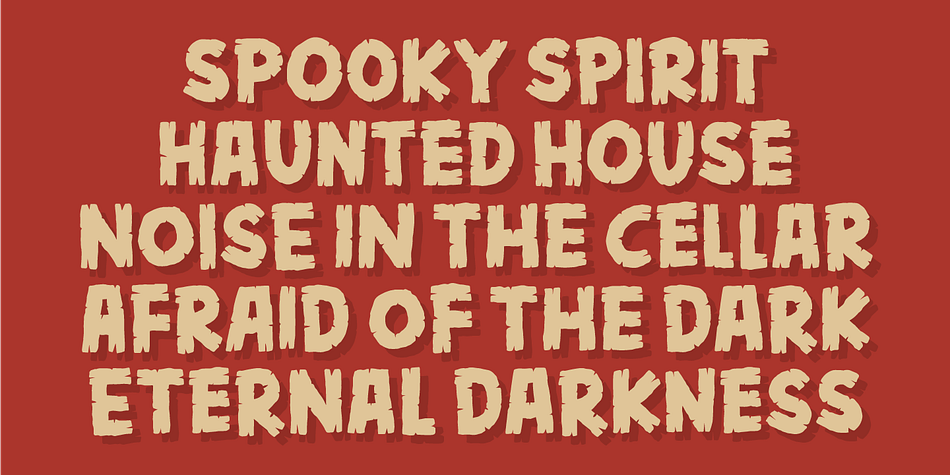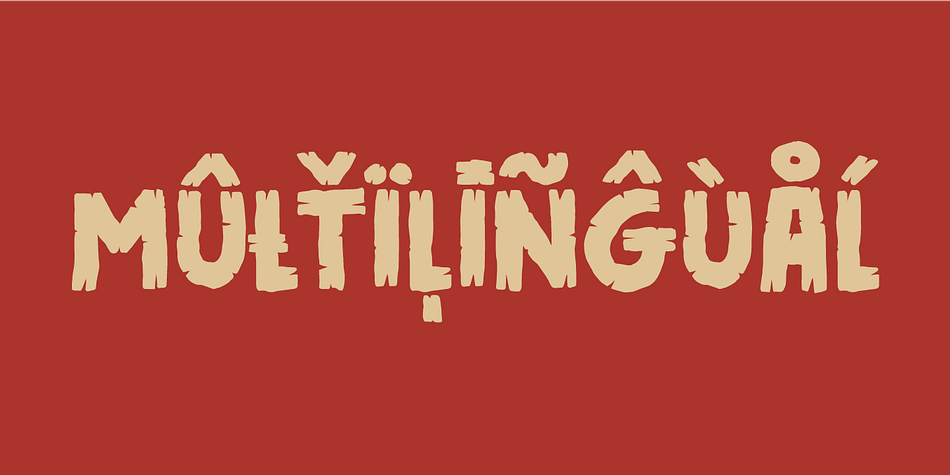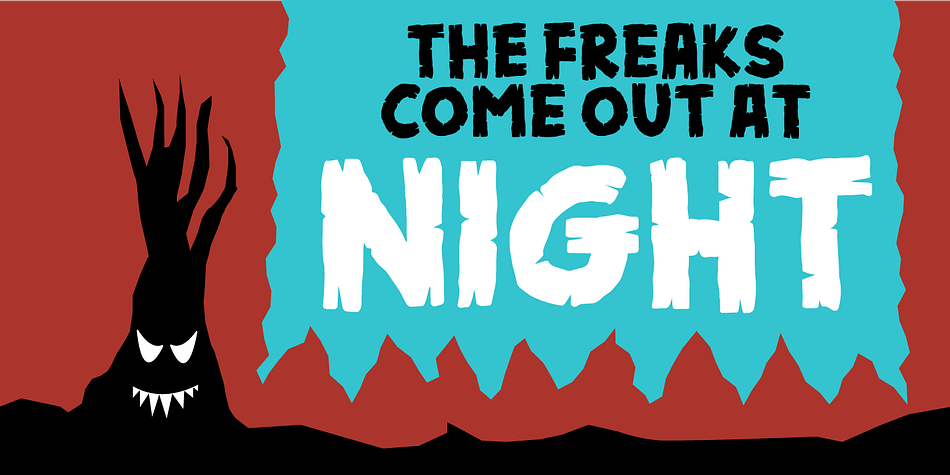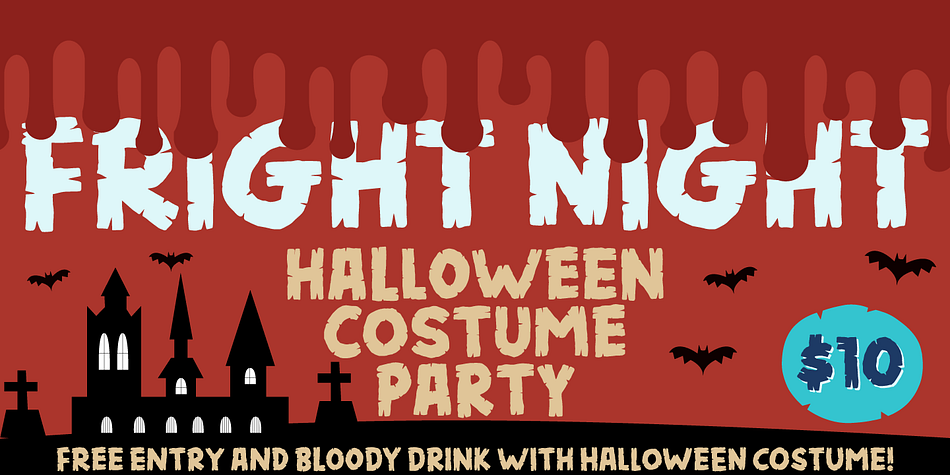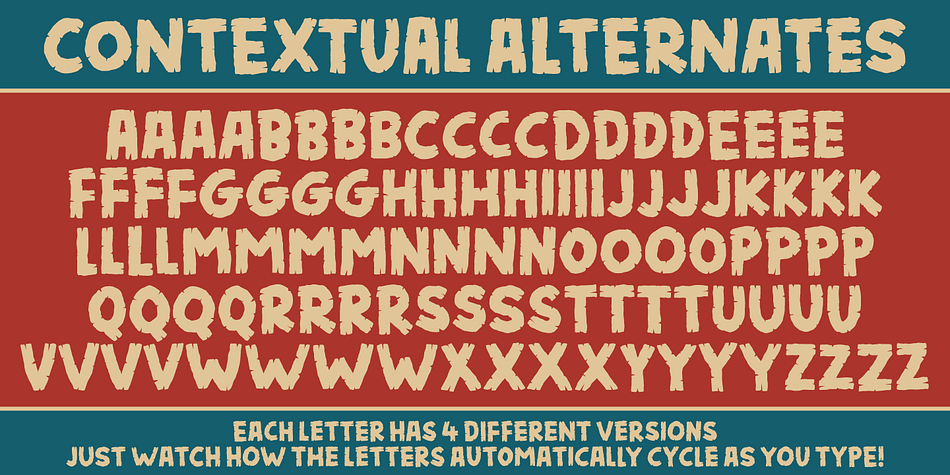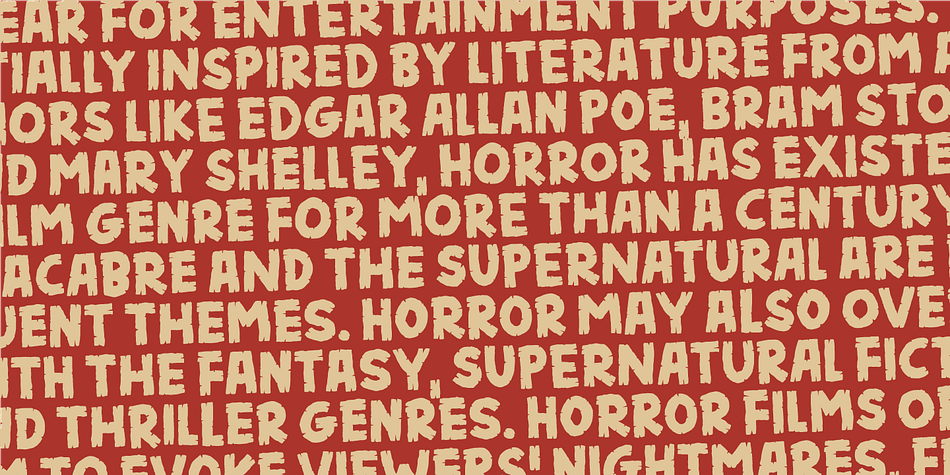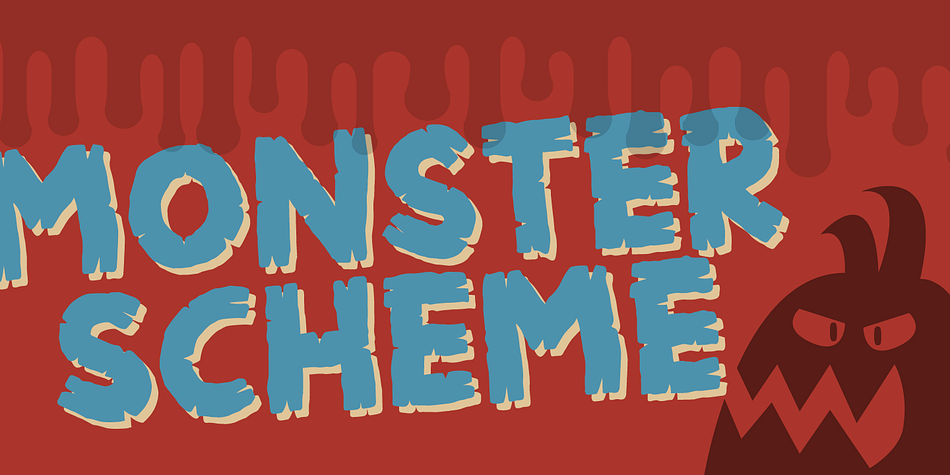
Designed by Jakob Fischer, Monster Scheme is a hand display and novelty font family. This typeface has two styles and was published by Pizzadude.dk.
What’s that creaking sound from the cellar?
Is that just a cat, or a slimy creature crawling in the dark?
No need to worry, there’s nothing there!
It’s just a font, mimicking the typical letters found on retro horror posters. And now you can create your own scary headlines, using my Monster Scheme font.
You can even do it in different languages, because Monster Scheme has multilingual support - and even 4 different versions of each letter! Now that’s scary! :)